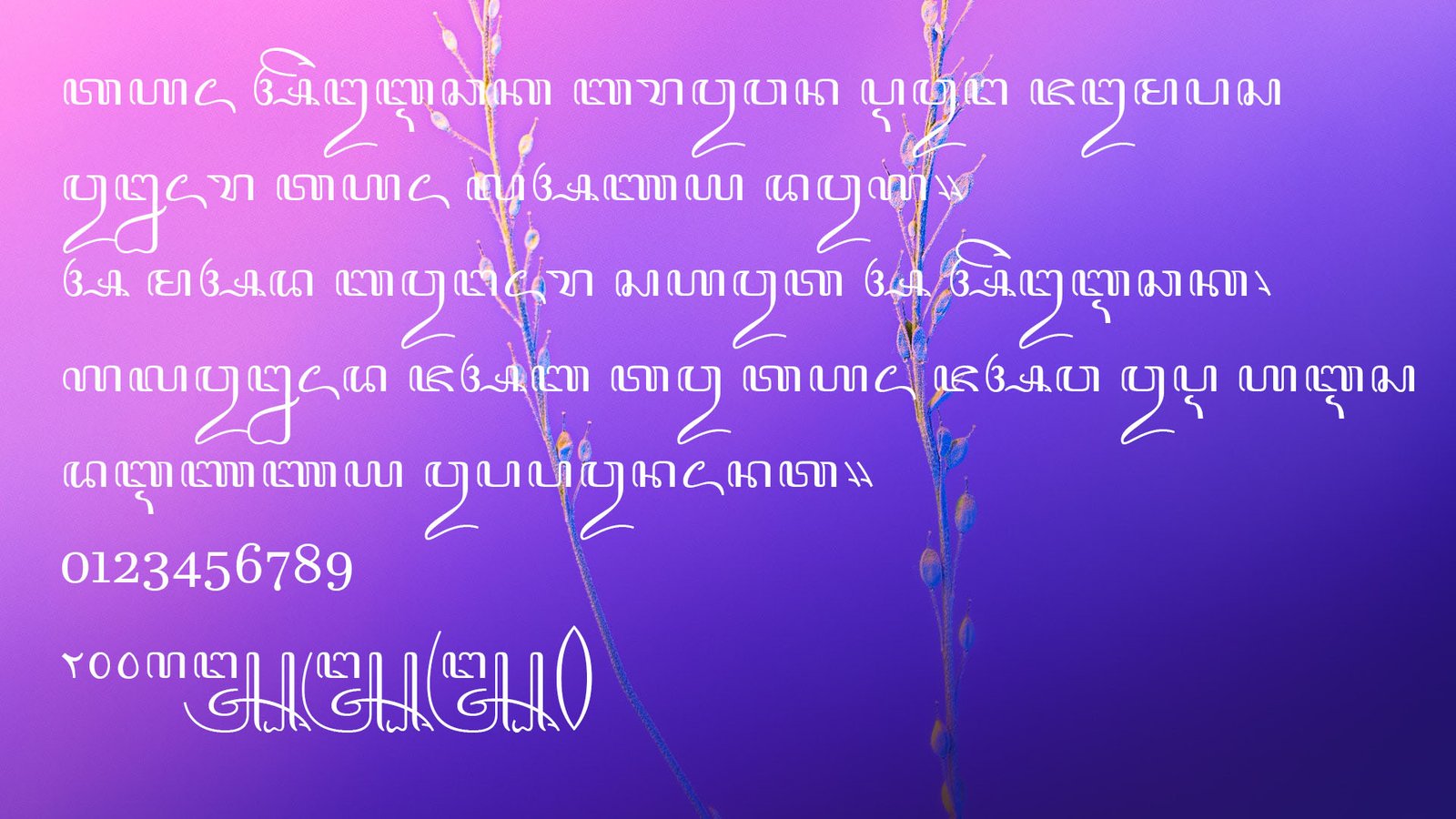
John Hudson one of the prominent designers created the Javanese Text font. This font is created to support the Javanese language in different applications. This is a script typeface. And in the region of Suriname and Indonesia, the Javanese language is spoken. So this beautiful font was added by Microsoft in Windows to assist Javanese script writing.
John Hudson worked for the Tiro Typeworks ltd at that time. And this typeface foundry develops this font specially for the Microsoft Corporation. It was published by Microsoft Corporation in 2018. Now Microsoft Corporation owns the copyrights for this font.
Javanese Text Font Family
| Name | Javanese Text Font |
| Designer | John Hudson |
| Type | Script |